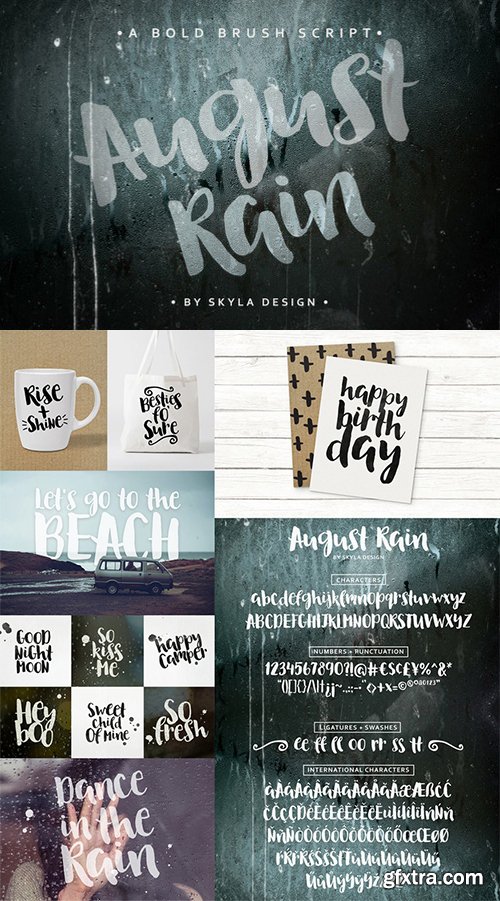
Brush font - August Rain
August Rain is a bold, brush font with an awesome style. This font is perfect for making posters, quotes, photo overlays, invites, logo's and whatever other amazing projects you're working on.
This font contains standard characters, lowercase, uppercase, numbers, punctuation, ligatures, swashes and international characters. You will receive the OTF and TTF files. You can use this font in Word, Photoshop, Illustrator, InDesign, InkScape, GIMP, Corel, Silhouette, Cricut, etc.